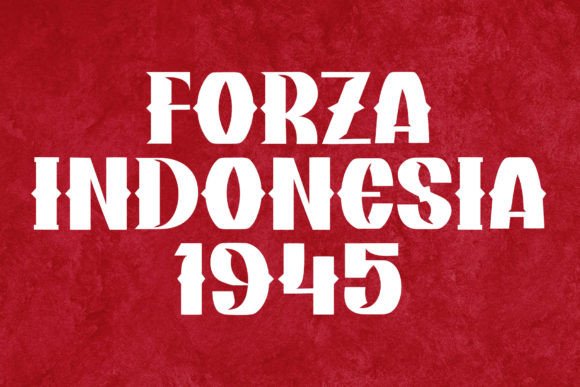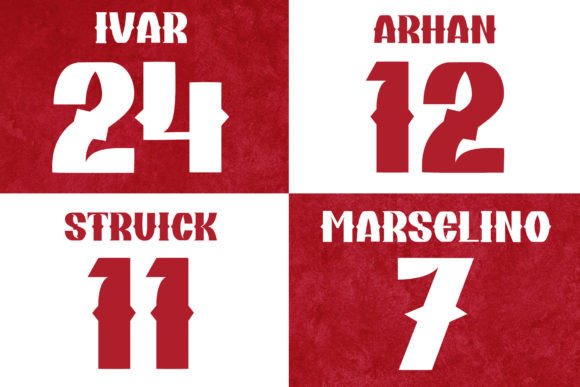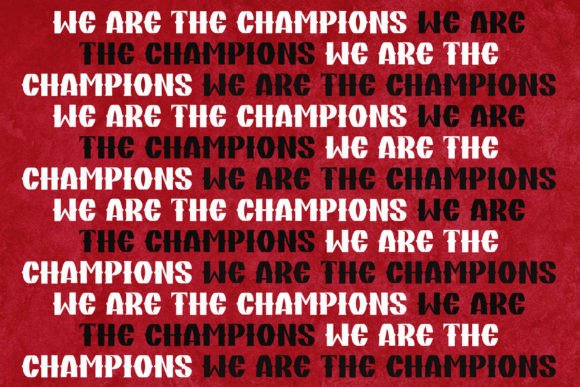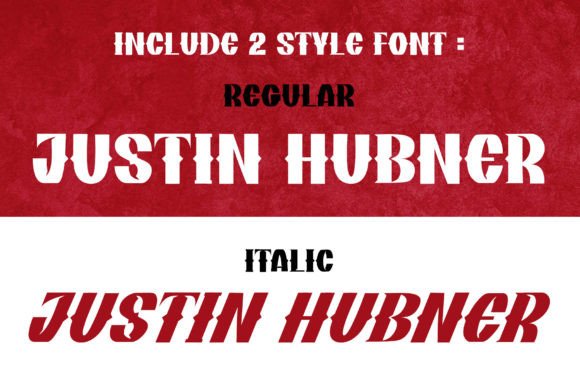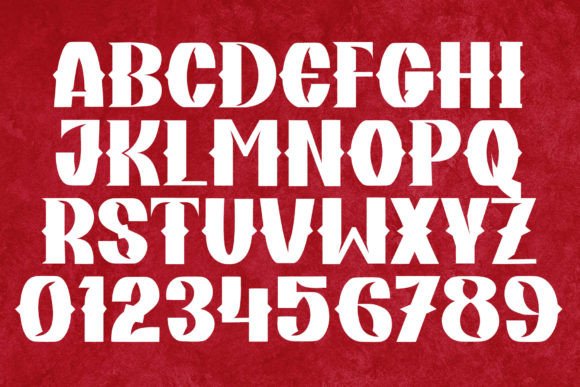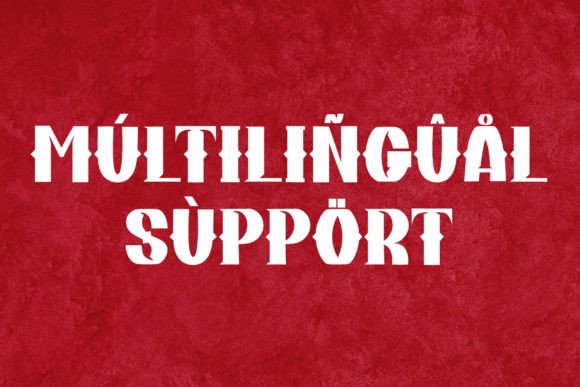
Introduction to Justin Hubner Font
Imagine you’re browsing through a sleek jersey collection, and suddenly, a specific design catches your eye. The elegant typography stands out against the transparent background, drawing you in with its sophistication. That’s the magic of the Justin Hubner Font – an exquisite serif font that exudes effortless cool and elevates any design project to the next level.
As a designer, you know the importance of a high-quality font in making your creative project truly shine. With the Justin Hubner Font, you can infuse your designs with an air of elegance and sophistication, making it a valuable addition to your design resource library. Whether you’re working on a sportswear logo, branding materials, or any other project, this font is sure to impress.
Key Features of Justin Hubner Font
- High-quality typography with clean lines and modern design, making it perfect for creative projects.
- Comes with a transparent background, allowing for easy customization and versatility in design.
- Designed by a professional typographer, Justin Hubner, to cater to the needs of modern designers and artists.
Honest Review: Justin Hubner Font
I recently stumbled upon the Justin Hubner Font while searching for a free design resource for my creative project. The font’s high quality and sleek design caught my attention, and I was excited to see how it would work in my project.
- The font’s transparent background makes it easy to combine with other design elements.
- The clean and modern design makes it perfect for digital design projects.
- The font is not suitable for printing, as it’s designed for digital use.
- The font family is limited, with only a few styles available.
Overall, I’m impressed with the Justin Hubner Font. It’s a great addition to my design resources, and I appreciate its high quality and transparency. However, I do wish there were more styles available to choose from.
The Justin Hubner Font is perfect for a variety of creative projects, including:
- Business cards and marketing materials.
- Logo designs and branding materials.
- Website headers and footers.